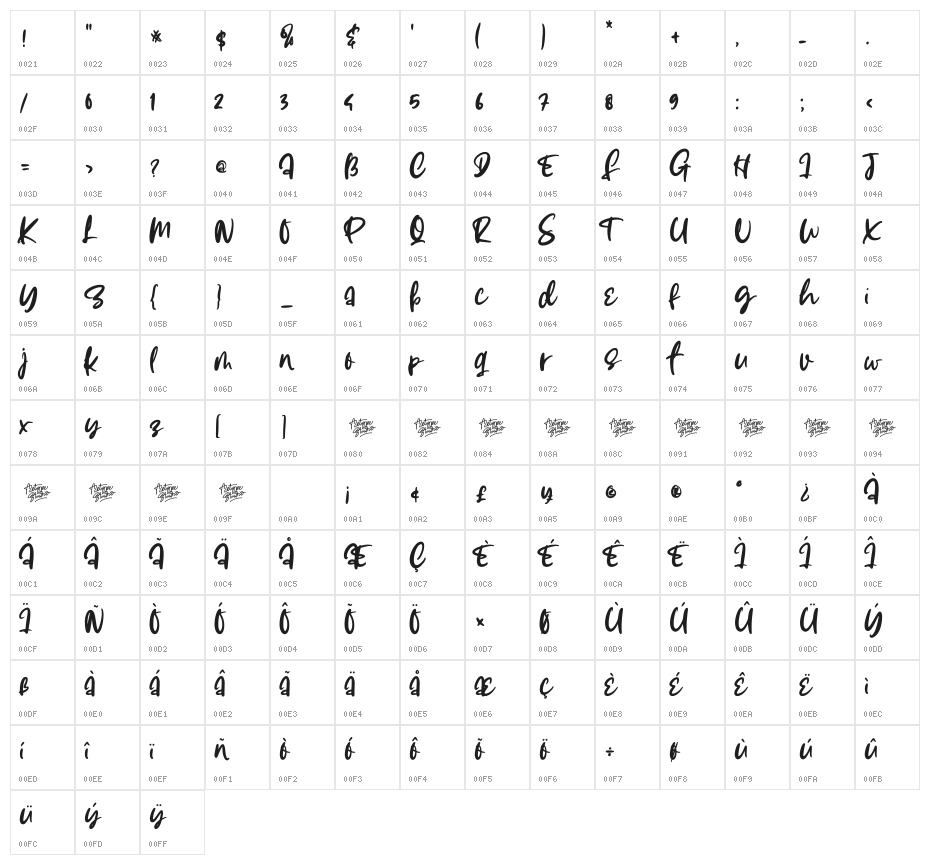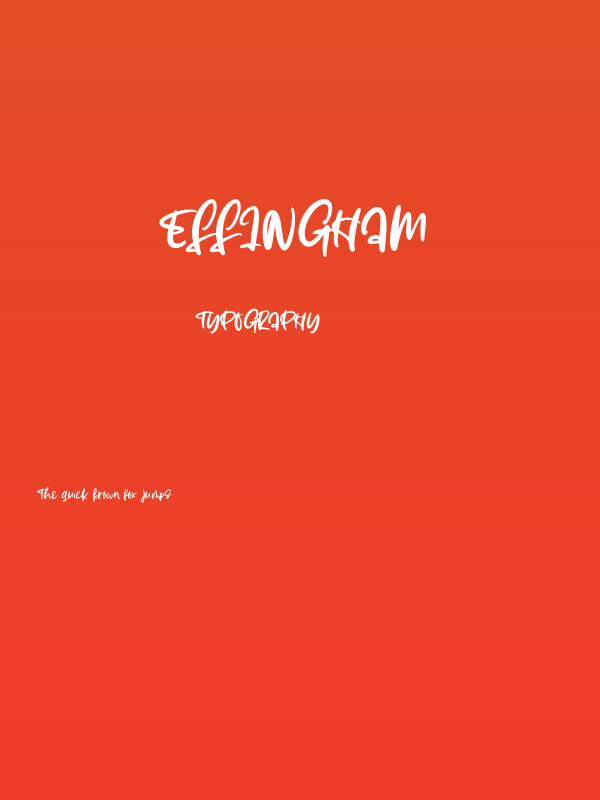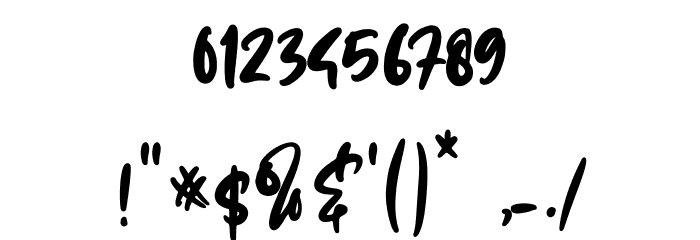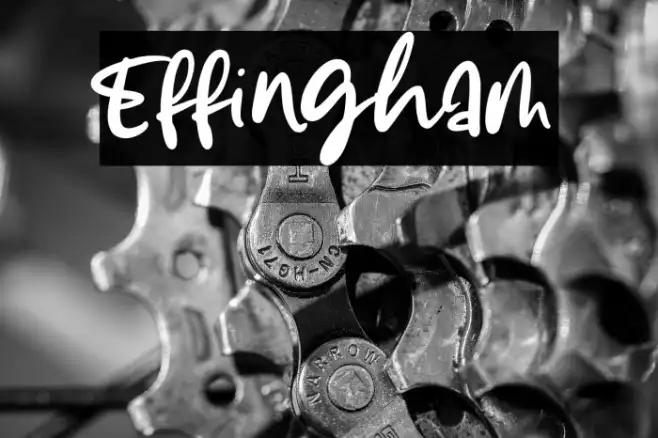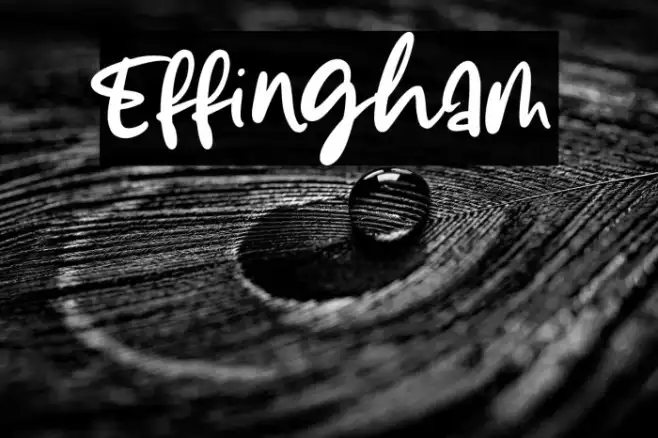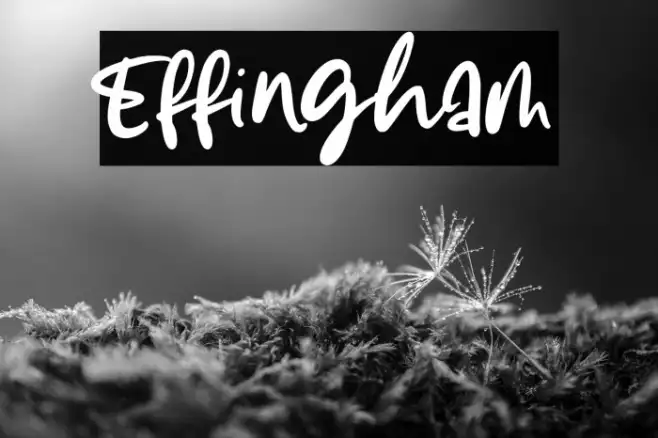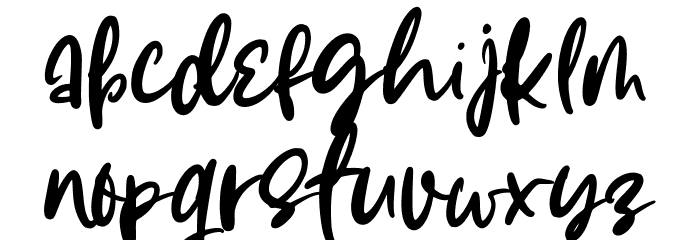
Effingham Font
Effingham Description
This font features a bold, expressive handwritten style that exudes a sense of energy and personality. The strokes are thick and fluid, with a natural flow that mimics the look of brush lettering. The uppercase letters are dynamic and slightly slanted, while the lowercase letters maintain a consistent rhythm and balance. Numbers and special characters are crafted with the same attention to detail, ensuring a cohesive appearance across all elements. The overall impression is one of creativity and spontaneity, making it ideal for projects that require a personal touch.